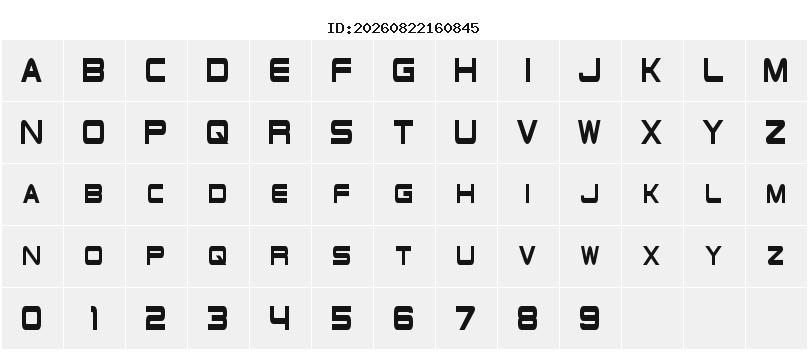
Schwarzenegger Condensed Preview
• Font Name: Schwarzenegger Condensed
• Full Font Name: Schwarzenegger Condensed
• Designer: Neale Davidson
About Schwarzenegger Condensed.ttf
Schwarzenegger Condensed.ttf is a modern, elegant sans-serif font designed for ultimate readability and visual harmony. Perfect for branding, headlines, web design, and print materials.